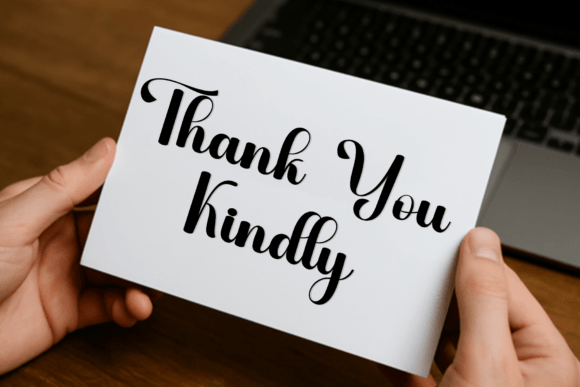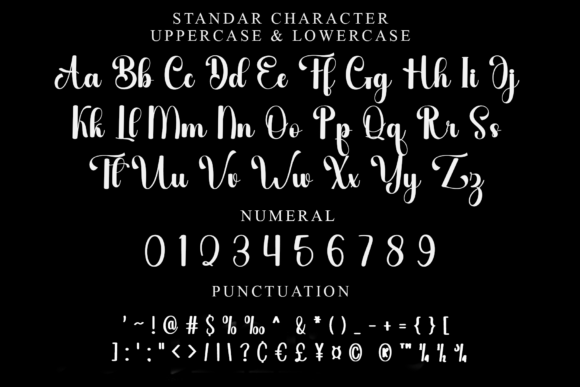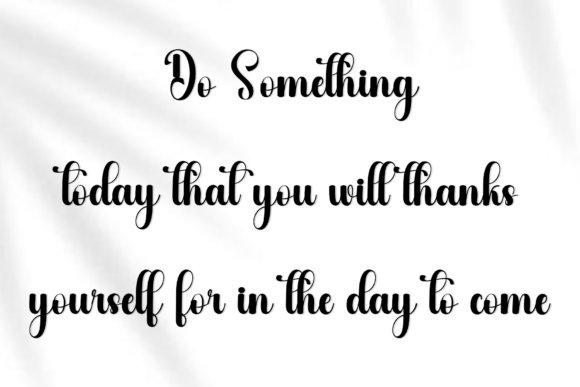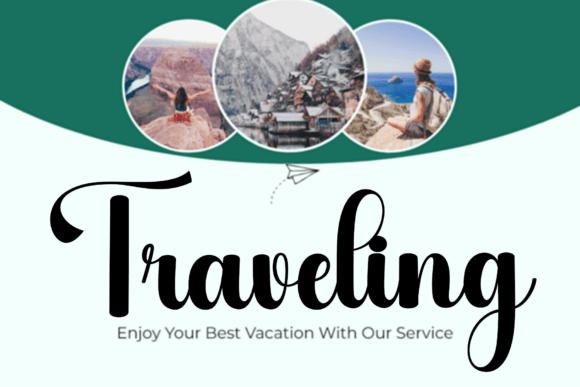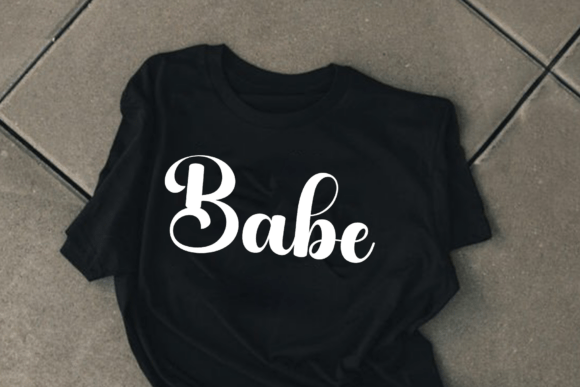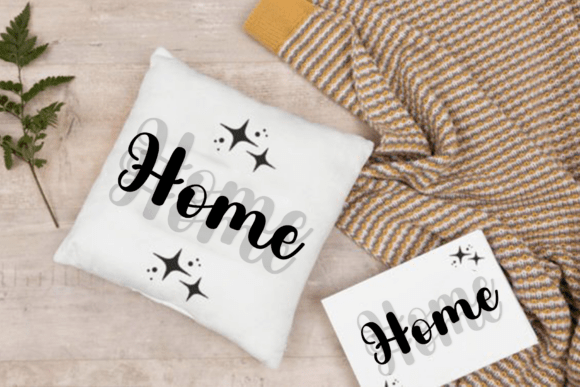
Baby Beauty Font: The Perfect Choice for Creative and Friendly Designs
Are you looking for a font that can add a touch of warmth and friendliness to your designs? Look no further than the Baby Beauty font. This casual and creative font is perfect for personal projects, invitations, social media graphics, and more. In this article, we’ll explore the features and benefits of the Baby Beauty font, and why it’s a must-have for designers and crafters.
The Charm of Baby Beauty Font
The Baby Beauty font is characterized by its round, playful strokes that create a relaxed and approachable feel. The font’s charming, hand-drawn aesthetic adds a fun and unique touch to any design, making it perfect for projects that require a personal touch. Whether you’re designing a birthday invitation, a social media post, or a personal blog, the Baby Beauty font is sure to make your design stand out.
Key Features of Baby Beauty Font
- Casual and Creative: The Baby Beauty font has a casual and creative vibe that makes it perfect for personal projects and social media graphics.
- Warm and Friendly: The font’s round, playful strokes create a warm and friendly feel that’s sure to engage your audience.
- Hand-Drawn Aesthetic: The font’s charming, hand-drawn aesthetic adds a fun and unique touch to any design.
Why Designers and Crafters Love Baby Beauty Font
Designers and crafters love the Baby Beauty font for its versatility and ease of use. The font is perfect for a wide range of projects, including:
- Personal Projects: Use the Baby Beauty font to add a personal touch to your blog, social media posts, or personal website.
- Invitations: Create beautiful and unique invitations for birthdays, weddings, or other special occasions.
- Social Media Graphics: Use the font to create engaging and eye-catching social media graphics that will stand out in a crowded feed.
- Crafting Projects: Add a touch of personality to your crafting projects, such as handmade cards, gift tags, or scrapbooking pages.
Tips for Using Baby Beauty Font
Here are some tips for getting the most out of the Baby Beauty font:
- Experiment with Colors: The Baby Beauty font looks great in a variety of colors, so don’t be afraid to experiment and find the perfect color scheme for your design.
- Mix and Match: Combine the Baby Beauty font with other fonts or graphics to create a unique and eye-catching design.
- Keep it Simple: Don’t overcomplicate your design. The Baby Beauty font is perfect for simple, yet effective designs.